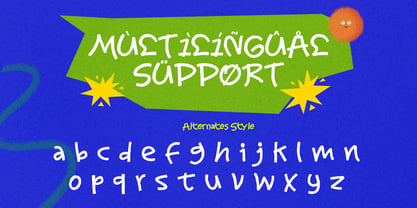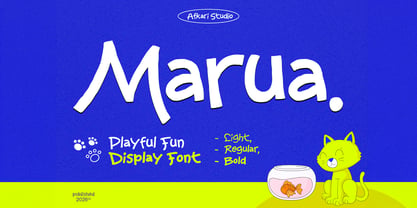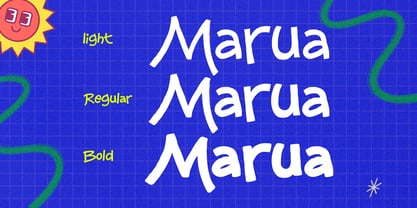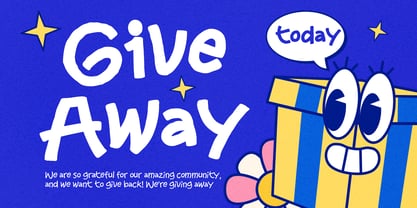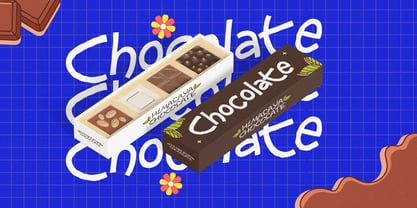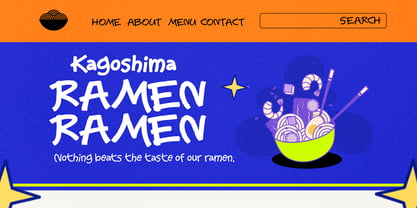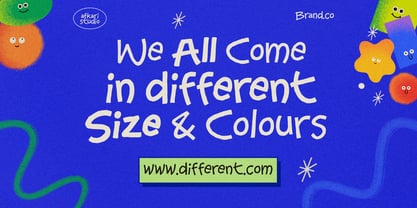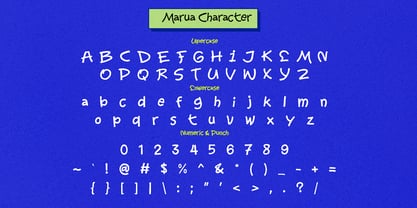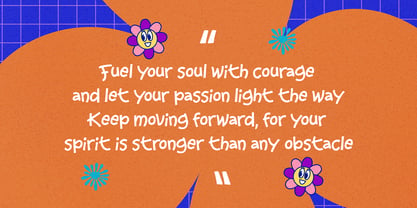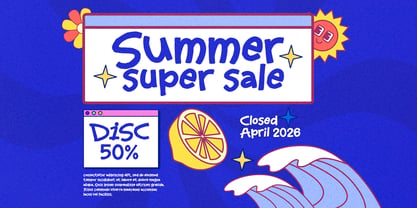
Marua
by Afkari Studio
The Marua Font Family was designed by Musthafa Kamal Emje and published by Afkari Studio. Marua contains 3 styles and family package options.
Marua is a playful fun display font designed to bring cheerful personality and energetic vibes into your creative projects. With its rounded shapes, lively curves, and friendly letterforms, Marua instantly creates a joyful atmosphere that captures attention and adds character to any design. This playful display font is perfect for designers who want typography that feels expressive, modern, and full of life. Marua comes in three versatile styles: Light, Regular, and Bold, allowing you to build dynamic typography compositions with ease. The Light style offers a soft and airy feel, perfect for subtle headlines and elegant playful layouts. The Regular style delivers balanced readability while maintaining its fun personality, making it ideal for everyday design needs. Meanwhile, the Bold style brings strong visual impact, making it perfect for eye-catching titles, posters, and branding. Carefully crafted with smooth curves and balanced spacing, Marua works beautifully across both digital and print designs. Whether you're creating branding for kids’ products, playful logos, social media graphics, YouTube thumbnails, posters, packaging, this playful display font helps your designs stand out with warmth and creativity. Marua is an excellent choice for projects that need a fun display font, playful typography, cute branding font, modern playful typeface, or friendly headline font. Its versatile character makes it suitable for creative studios, children’s brands, toy packaging, event invitations, greeting cards, and modern digital content. Highlighted Features: - Uppercase, Lowercase, Number, and Punctuation - Playful and friendly letterforms - Works on PC & Mac - Simple installations - Accessible in Adobe Illustrator, Adobe Photoshop, Adobe InDesign, and even work on Microsoft Word - Fully accessible without additional design software. - Mültîlíñgúãl Sùppört for; ä ö ü Ä Ö Ü ß ¿ ¡ Add a spark of happiness to your typography collection with Marua. This playful fun display font is designed to help designers create vibrant, memorable, and engaging visual designs with ease.
Designers: Musthafa Kamal Emje
Publisher: Afkari Studio
Foundry: Afkari Studio
Design Owner: Afkari Studio